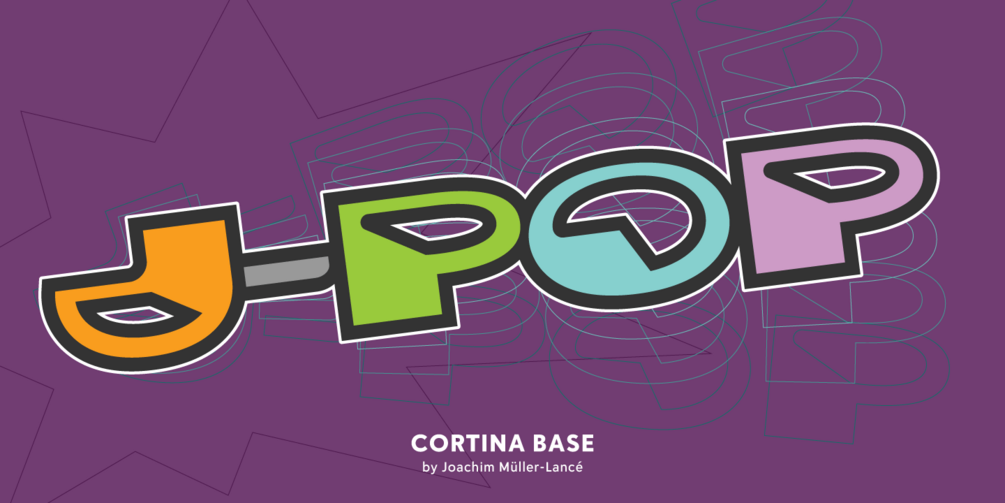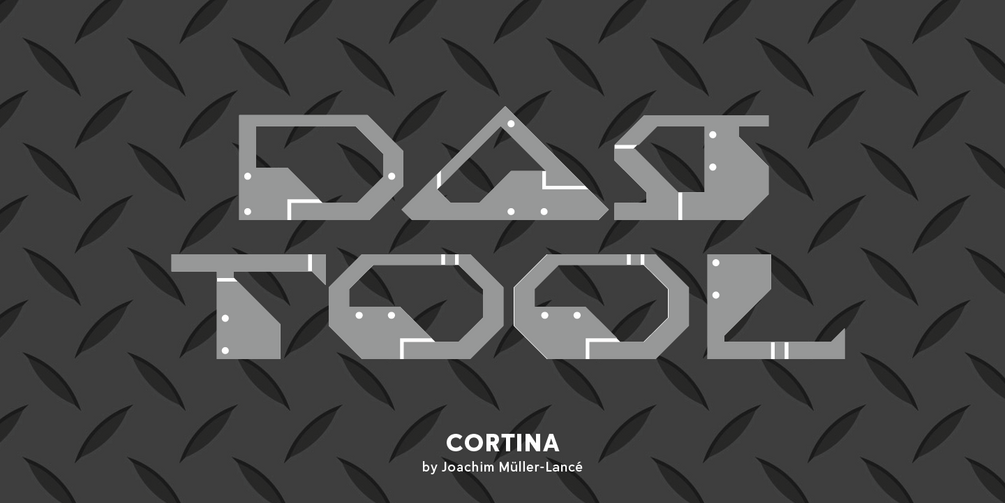
Serendipity often occurs in typefaces from the hand of the award-winning type designer, Joachim Müller-Lancé. The design of Cortina was inspired by a small shape spotted by coincidence: a tiny triangular tab in a software panel that resembled a futuristic ‘A’. Joachim developed the entire concept from this idea into a family of three styles: Cortina Base, Slate, and Plate. Each is modeled on the same conceptual form sharing proportions, but with different features.
“Base” echoes chrome lettering and motorism. “Slate” has a dogged steampunk attitude and ang­ular, utilitarian octagonal shapes. “Plate”, goes further and Cortina’s modular design approach be­comes evident in industrial-grade patches and rivet holes.
Cortina is best used at large sizes where the unique forms and details can catch the viewer’s eye. Put Cortina to work on movie posters, video games, toy packaging, car accessories, book covers, or any project needing a technological aesthetic.